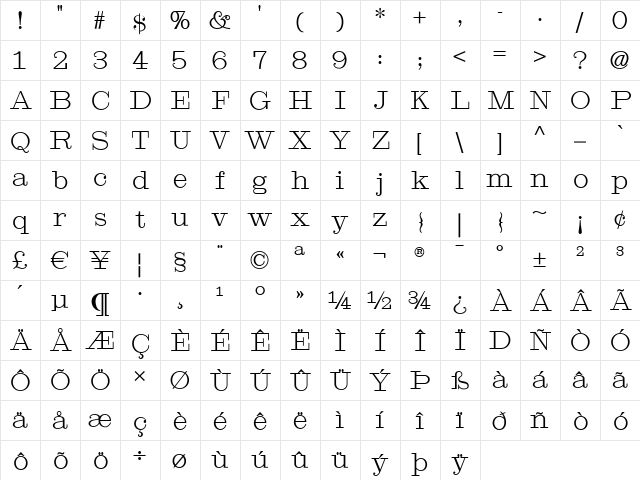
Centralia Depot NF Regular
Design Context for Centralia Depot NF Typeface
Centralia Depot NF takes a measured approach to typography — its balanced proportions and neutral character make it a reliable workhorse for both digital and print work.